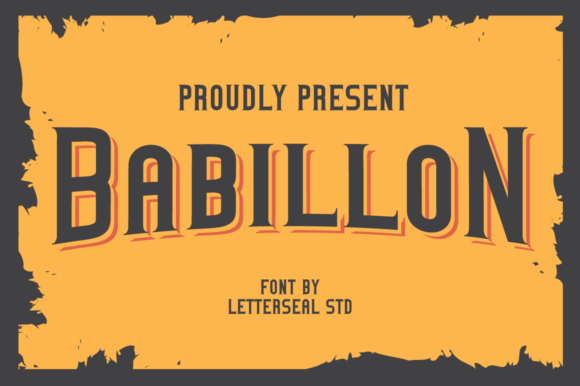
Babillon Font
Embark on a typographic odyssey with Babillon Font, a display font that exudes boldness, sophistication, and a touch of playfulness. Its chunky and elongated characters dance across the page, commanding attention and leaving a lasting impression.
Crafted with meticulous precision by hi.letterseal, Babillon Font is a visual masterpiece that elevates your designs to new heights. Its unique charm shines brightest when employed in logos, branding endeavors, and packaging designs. But its versatility extends far beyond these realms, making it a must-have for any creative seeking to make a statement.
Immerse yourself in the world of Babillon Font and discover a universe of creative possibilities. Let its bold strokes ignite your imagination and propel your designs to unprecedented levels of excellence.